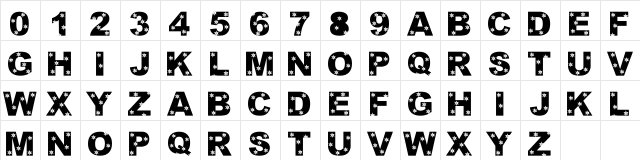
LMS Let It Snow Regular Free Font
LMS Let It Snow Regular
Design Context for LMS Let It Snow
LMS Let It Snow is a composed and adaptable typeface that performs quietly and consistently across a wide range of design contexts.
Pro Tip: Use LMS Let It Snow in both headline and body roles to test its range before committing to a single application.